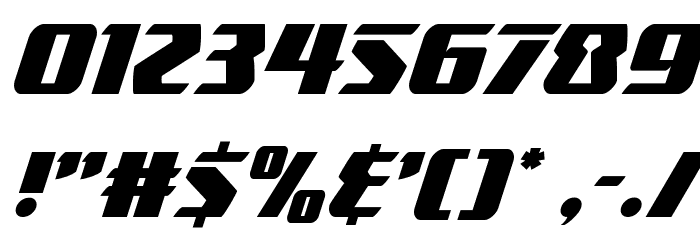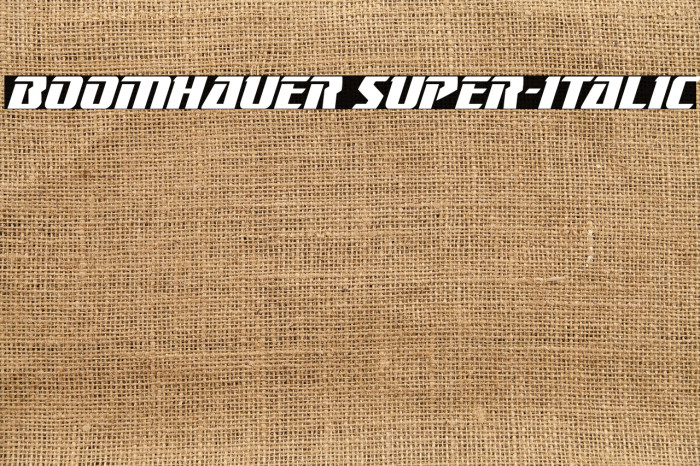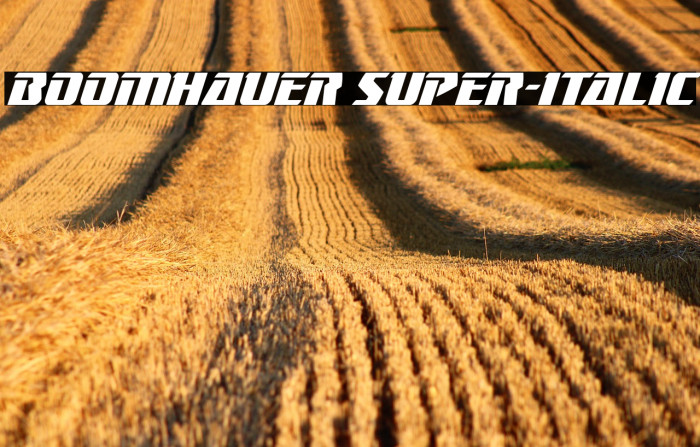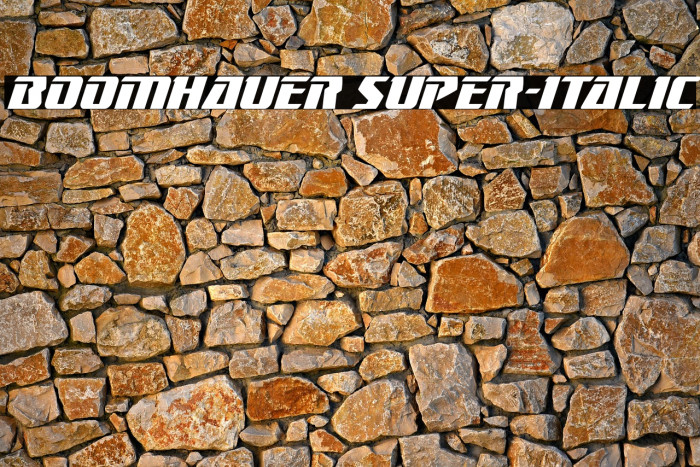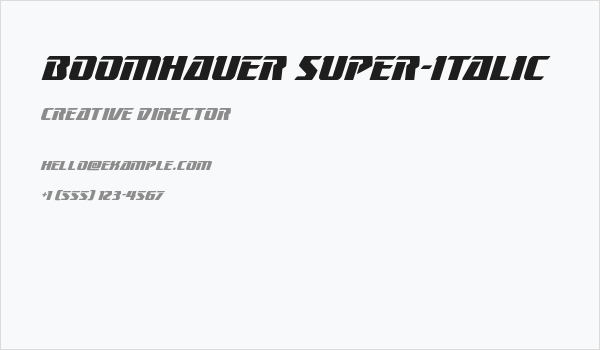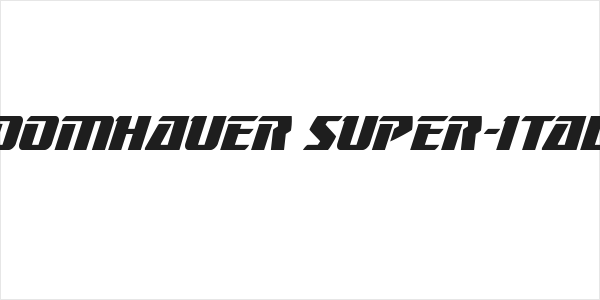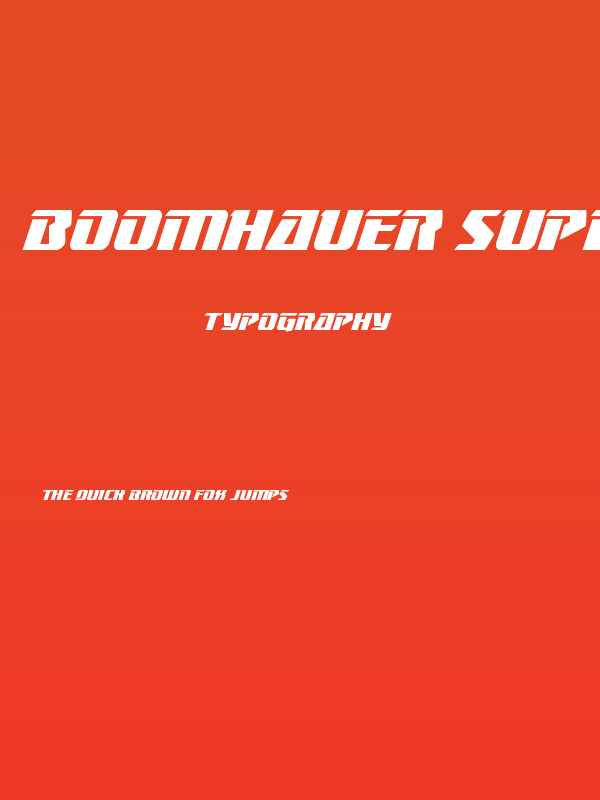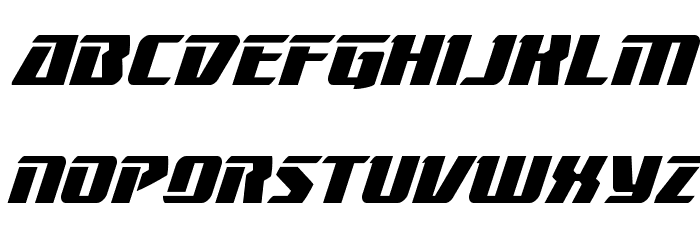
Boomhauer Super-Italic Font
Boomhauer Super-Italic Description
This font features a bold, italicized style with a strong, angular design. The characters are sharply defined with a futuristic and dynamic appearance, making them stand out prominently. The slanted orientation adds a sense of motion and speed, ideal for projects that require a modern and energetic look. The uppercase and lowercase letters maintain a consistent style, with numbers and special characters following the same design principles. The overall aesthetic is sleek and contemporary, suitable for eye-catching headlines and branding.
| Proposed Projects | Ideal for sports branding, tech logos, dynamic posters, and modern advertising campaigns. |